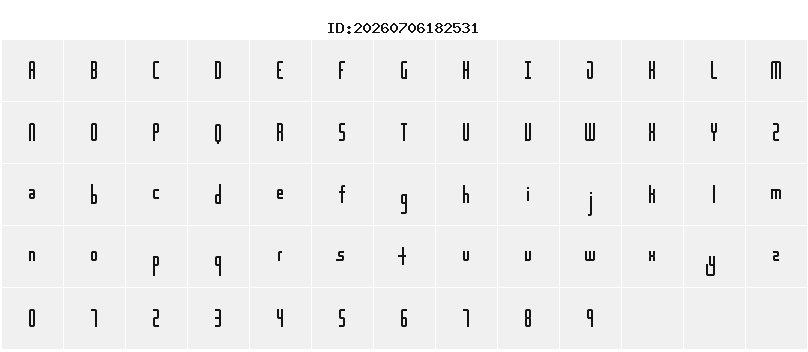
Destiny Preview
• Font Name: Destiny
• Font ID: FontStruct Destiny
• Full Font Name: Destiny Regular
• PostScript Name: Destiny
• Character Count: 83
• Designer: GeronimoFonts
• Description: ‚ÄúDestiny‚Äù was built with FontStruct
About Destiny.ttf
Destiny.ttf is a modern, elegant sans-serif font designed for ultimate readability and visual harmony. Perfect for branding, headlines, web design, and print materials.